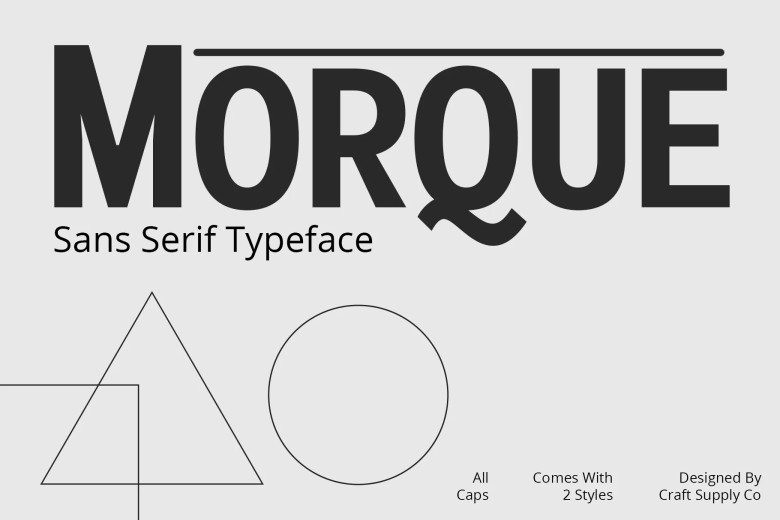
Morque Font
Morque is a Sans Serif stands out due to its all-caps style. Perfect for dramatic displays and titles, its bold style attracts attention in any visual area and increases quality headlines. Morque font is the go-to font for designers looking to make an impressive statement.
Boasting a modern appearance and compatible with various forms of media like digital and print media, Morque fits in easily in various contexts like posters, websites and posters. Furthermore, Morque was designed for easy of use – its compatibility with various software options makes it one of the preferred choices among graphic designers.
Morque Sans Serif Font